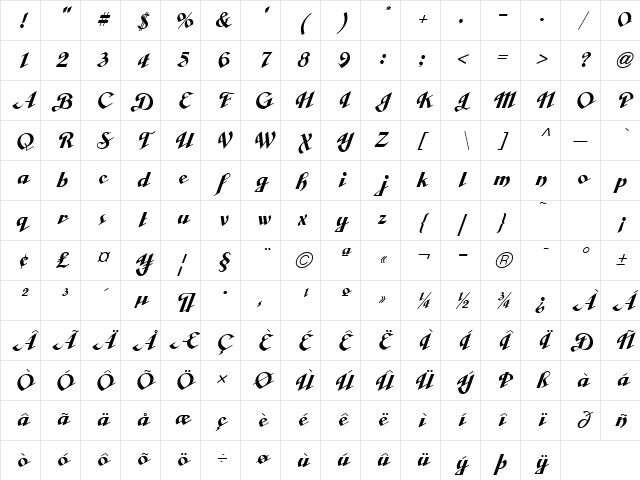
Complete Cabarga Curs ICG Solid Alt Regular glyph index. Displaying only characters natively supported by Cabarga Curs ICG Solid Alt Regular font.
Cabarga Curs ICG Solid Alt is a composed and adaptable typeface that performs quietly and consistently across a wide range of design contexts.